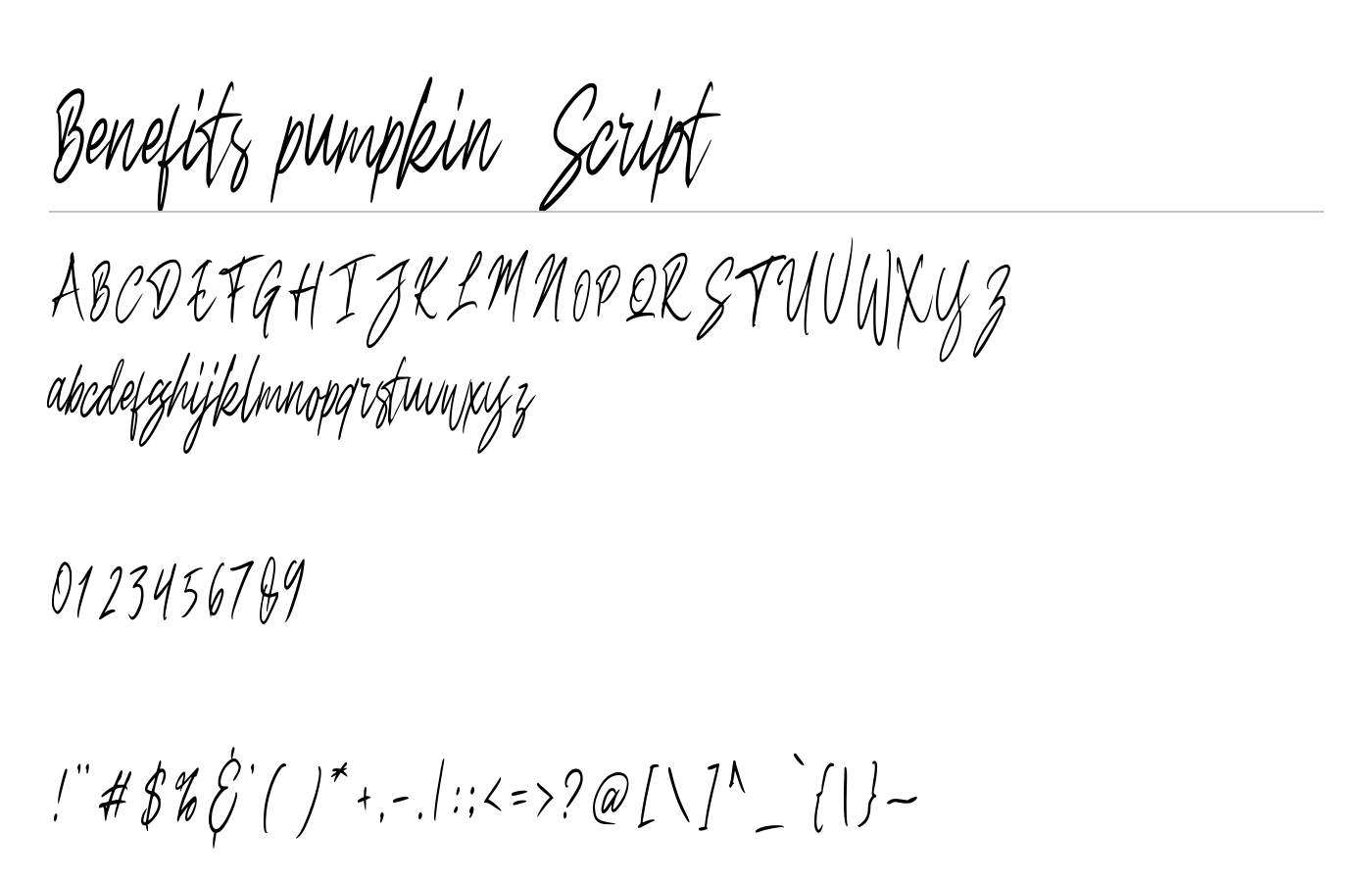
Benefits Pumpkin Script is a tall, slender handwritten font with a casual, natural flair, featuring narrow letterforms and smooth, flowing lines. Its light weight and slightly irregular strokes give it an approachable, personalized feel, ideal for projects seeking a friendly and artistic touch. This font works well for invitations, branding, and creative headlines where a charming, handcrafted style is desired.
Benefits pumpkin Script Font
About Benefits pumpkin Script Font